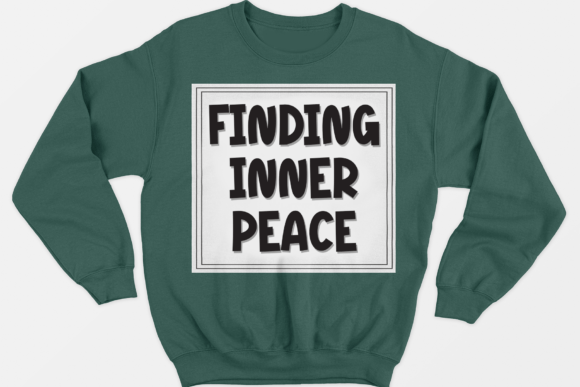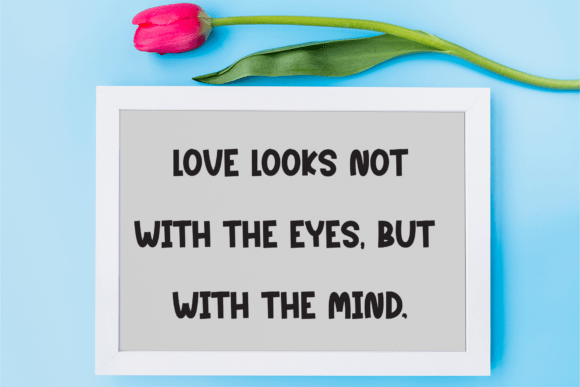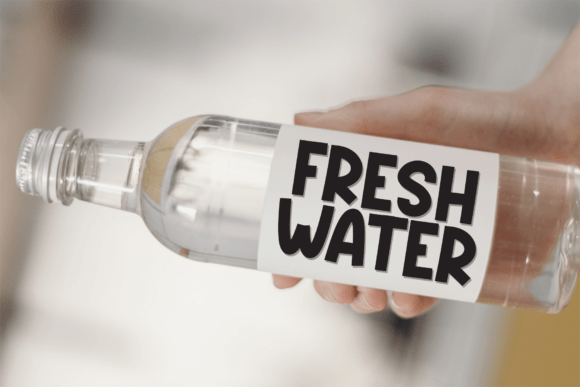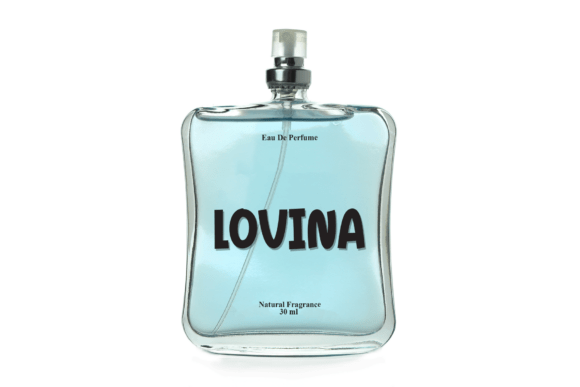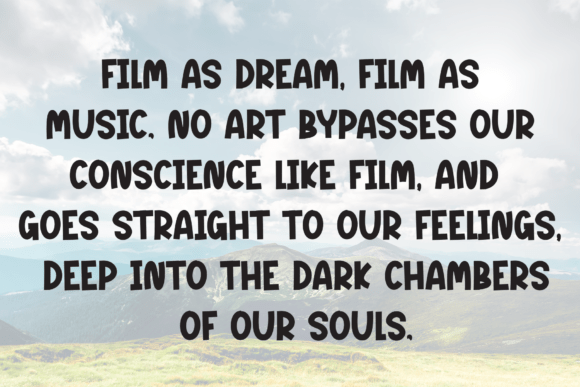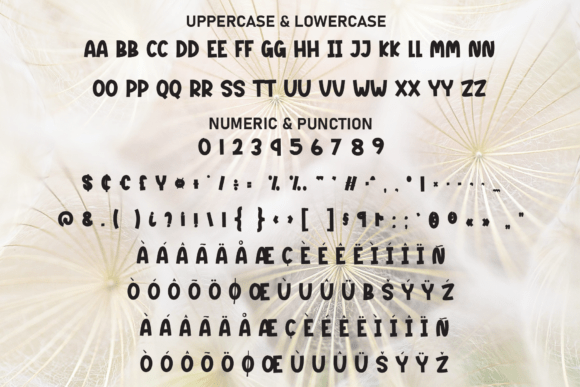
Introduction to Seamless Flower Font
Seamless Flower is a playful and bold display font full of personality and charm.
Its quirky letterforms and solid strokes are ideal for cheerful branding, childrenโs books, nature-themed packaging, and anything that needs an extra dose of joy .